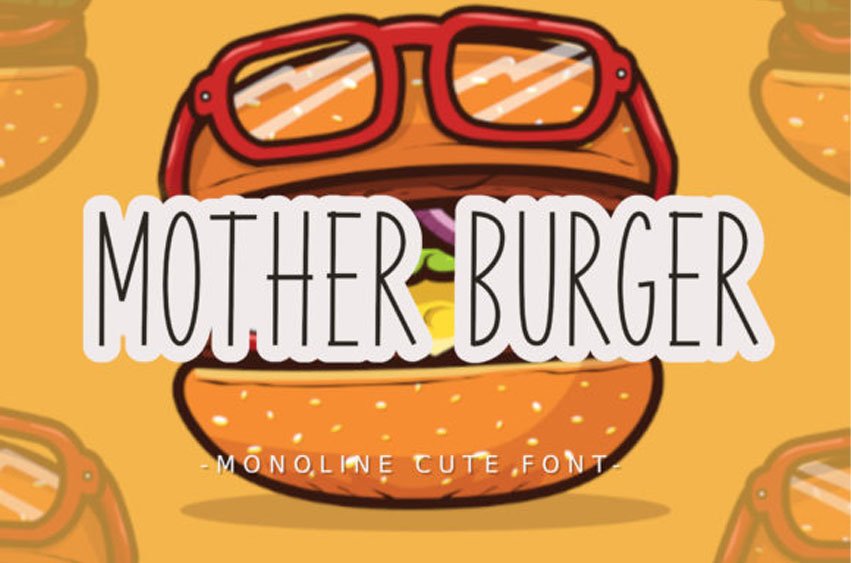
Mother Burger Font is a simple and thin lettered sans serif font.
It can easily be matched to an incredibly large set of projects, so add it to your creative ideas and notice how it makes them stand out!